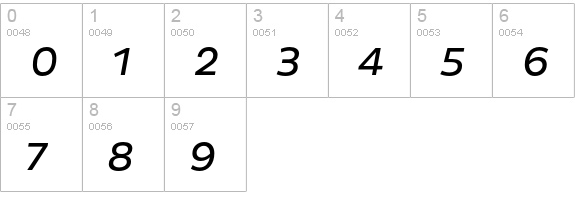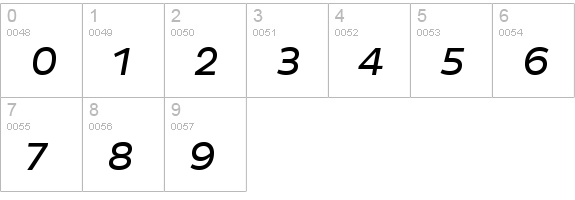
Pluto Regular Italic is the standard, neutral, italic variant in the Pluto typeface family \xE2\x80\x94 well suited to general body text, paragraphs, and standard typographic work.
Pluto Regular Italic font exudes a sense of elegance and sophistication with its sleek and modern design. The italicized style adds a touch of flair and creativity to any project, making it perfect for both professional and creative use. The smooth curves and balanced letterforms of Pluto Regular Italic make it a versatile choice for various design applications. Best of all, Pluto Regular Italic font is available for free download at FontsMarket.com. This means you can easily access this stylish and versatile font to elevate your designs without any cost. Don't miss out on the opportunity to enhance your projects with the timeless charm of Pluto Regular Italic font, now just a click away for free at FontsMarket.com.